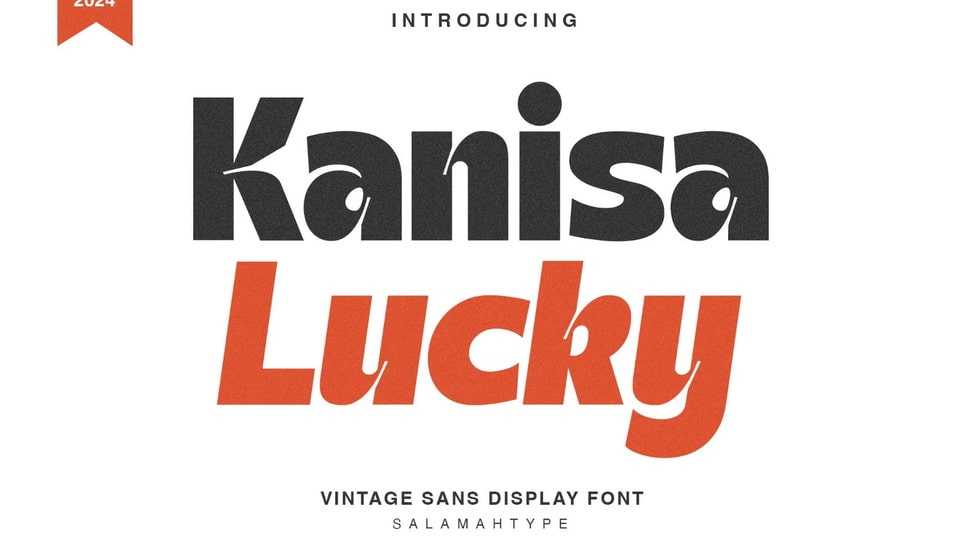
Kanisa Lucky Font › Fontesk – Fonte Grátis
Download Kanisa Lucky font, a bold typeface featuring an ink trap style, making it an excellent choice for logos, headlines, sport flyers, magazines, books, and other print media.